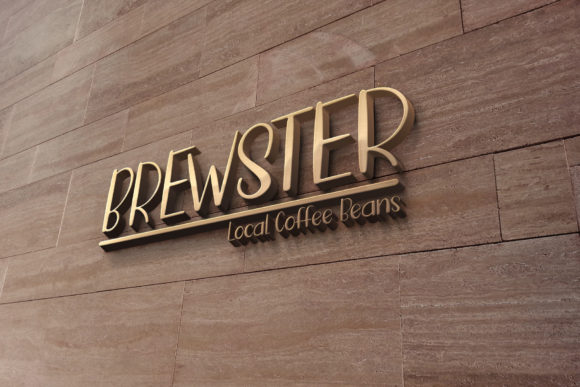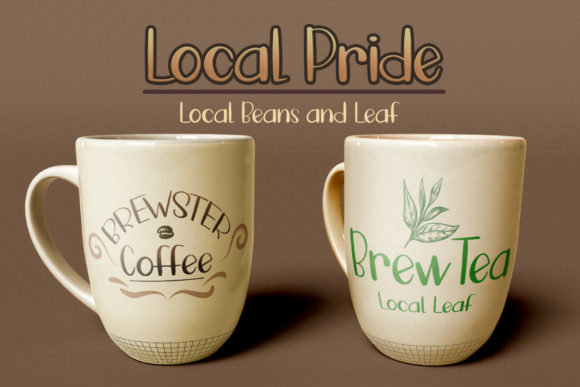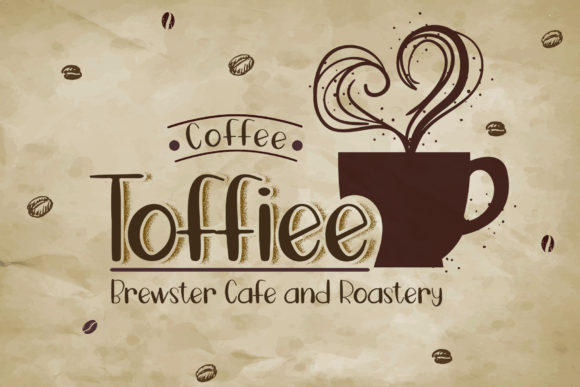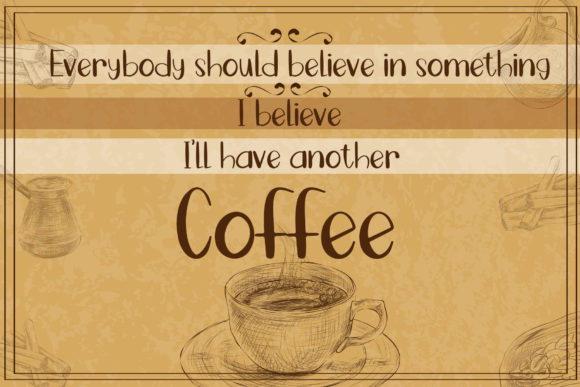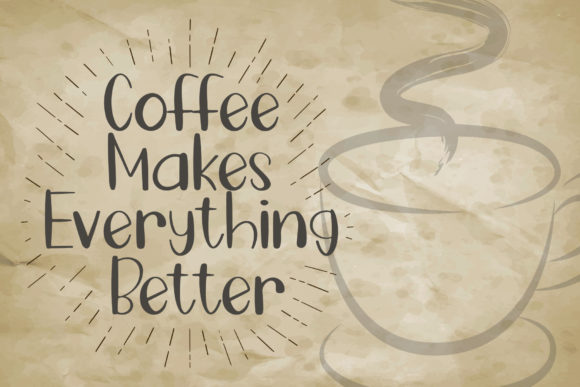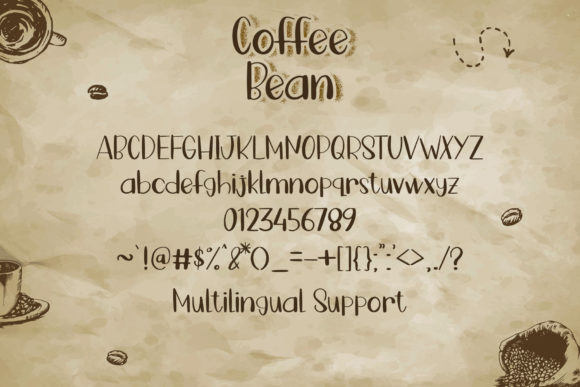
The Perfect Cup of Creativity: Uncovering the Charm of Coffee Bean Font
There’s nothing quite like the feeling of sipping a freshly brewed cup of coffee on a lazy Sunday morning, surrounded by scribbled notes and half-finished projects. It’s in these moments that creativity flows freely, and inspiration strikes. For designers, the hunt for the perfect font is an ongoing quest, and today we’re excited to share with you a hidden gem that’s sure to perk up your designs – the Coffee Bean Font.
This adorable script font is more than just a pretty face; it’s a versatile tool that can add a personal touch to your chalkboard quotes, teaching materials, and any other design project that requires a rustic charm. With its authentic look and feel, the Coffee Bean Font is an invaluable asset for designers looking to create authentic and engaging designs that stand out from the crowd.
Coffee Bean Font Key Features
- Font Family: The Coffee Bean Font is a unique, hand-drawn font that includes a variety of styles and weights, making it perfect for creating visually appealing designs.
- Character Count: The font includes over 300 unique characters, including Latin, Cyrillic, and Greek alphabets, as well as a range of punctuation and symbols.
- Unique Characteristics: The Coffee Bean Font features a distinctive, hand-crafted feel with subtle imperfections and variations, giving designs a unique and organic look.
Coffee Bean Font Review
As a designer, I’m always on the lookout for fonts that add a unique touch to my projects. The Coffee Bean Font is no exception. Here’s my honest review.
- The Coffee Bean Font has a distinctive, hand-drawn feel that’s perfect for adding a personal touch to designs.
- The font is highly customizable, with a range of styles and sizes to choose from.
- The font can be a bit difficult to read at smaller sizes, so be careful when using it in smaller text.
- The font may not be suitable for formal or professional designs, as it has a more casual, playful feel.
- The font is not as widely supported as some other fonts, so you may encounter issues with certain devices or browsers.
Overall, I think the Coffee Bean Font is a great choice for designers who want to add a unique, personal touch to their projects. While it has some limitations, it’s a great option for casual or creative designs. Just be sure to use it wisely and consider the context in which it will be used.
Getting the Most Out of the Coffee Bean Font
To get the most out of the Coffee Bean Font, use it in conjunction with other design elements to create a unique and eye-catching visual identity.
Use the font to create custom logos, branding materials, and marketing collateral that stand out from the crowd.
The Coffee Bean Font is ideal for:
1. Food and beverage branding.
2. Cafe and restaurant menus.
3. Coffee shop and bakery branding.
4. Social media graphics and advertisements.